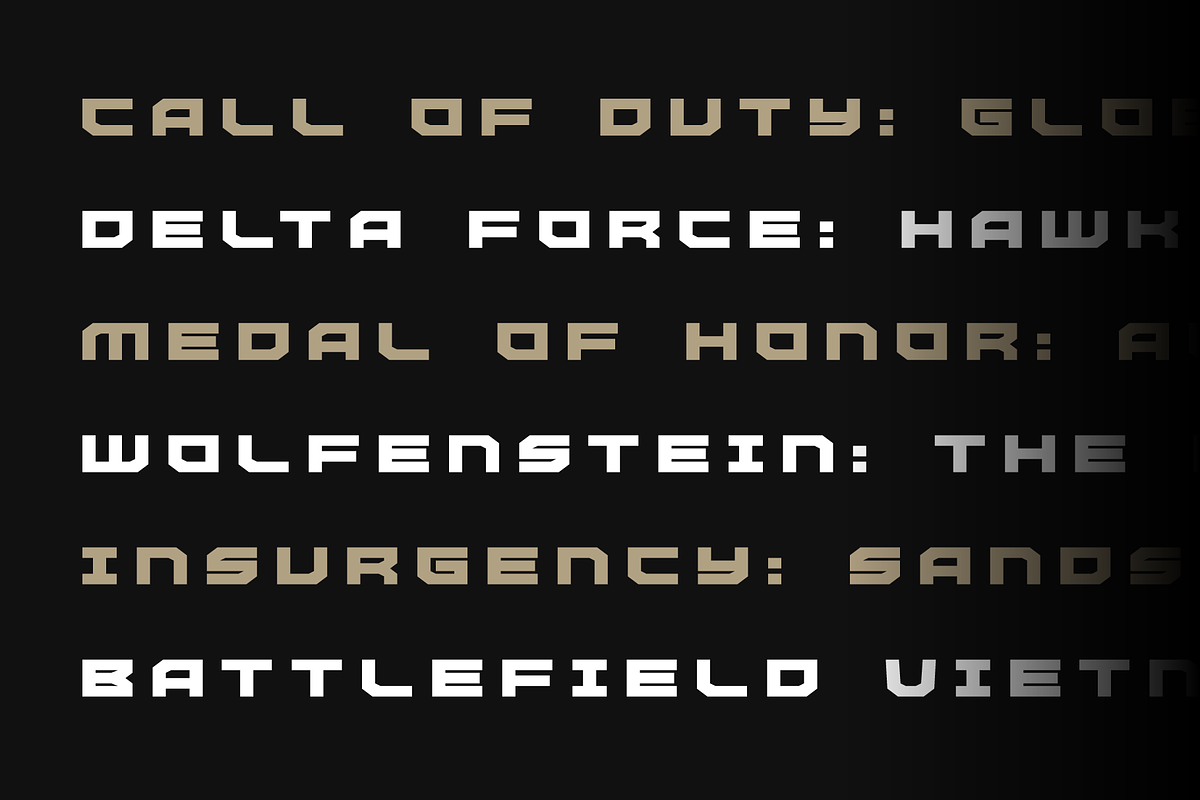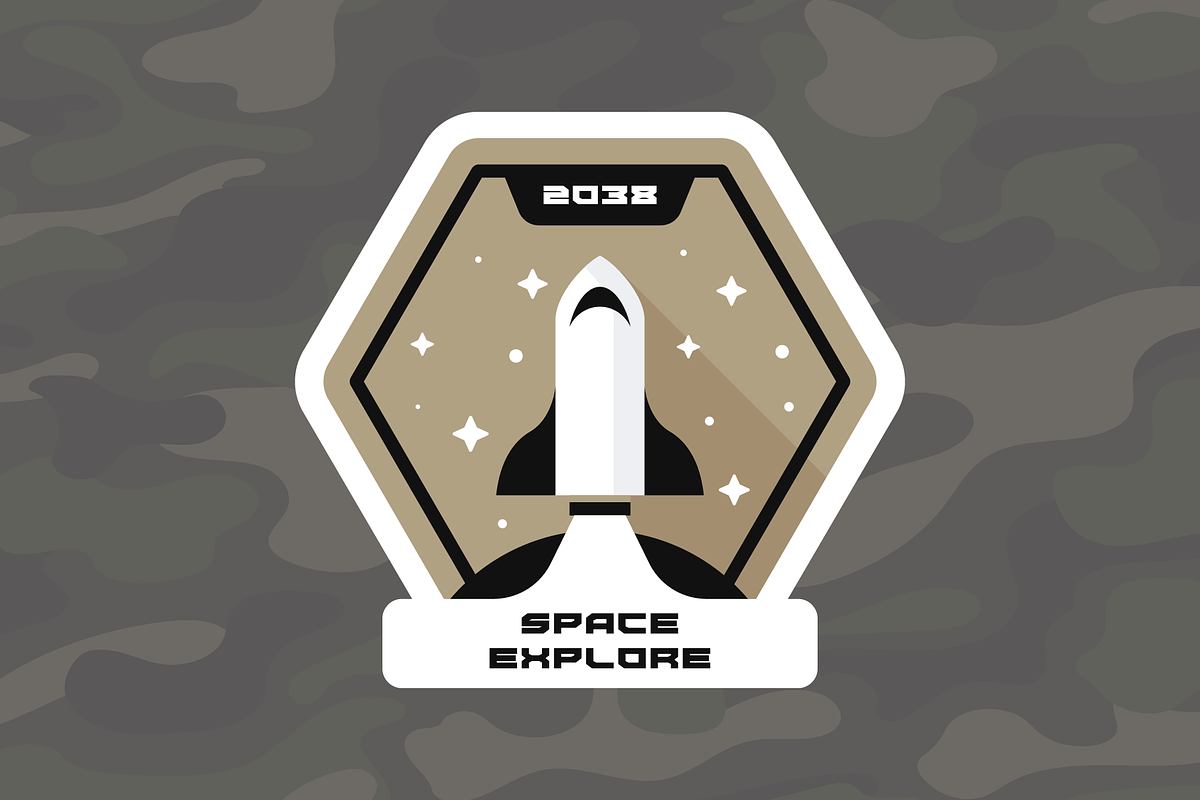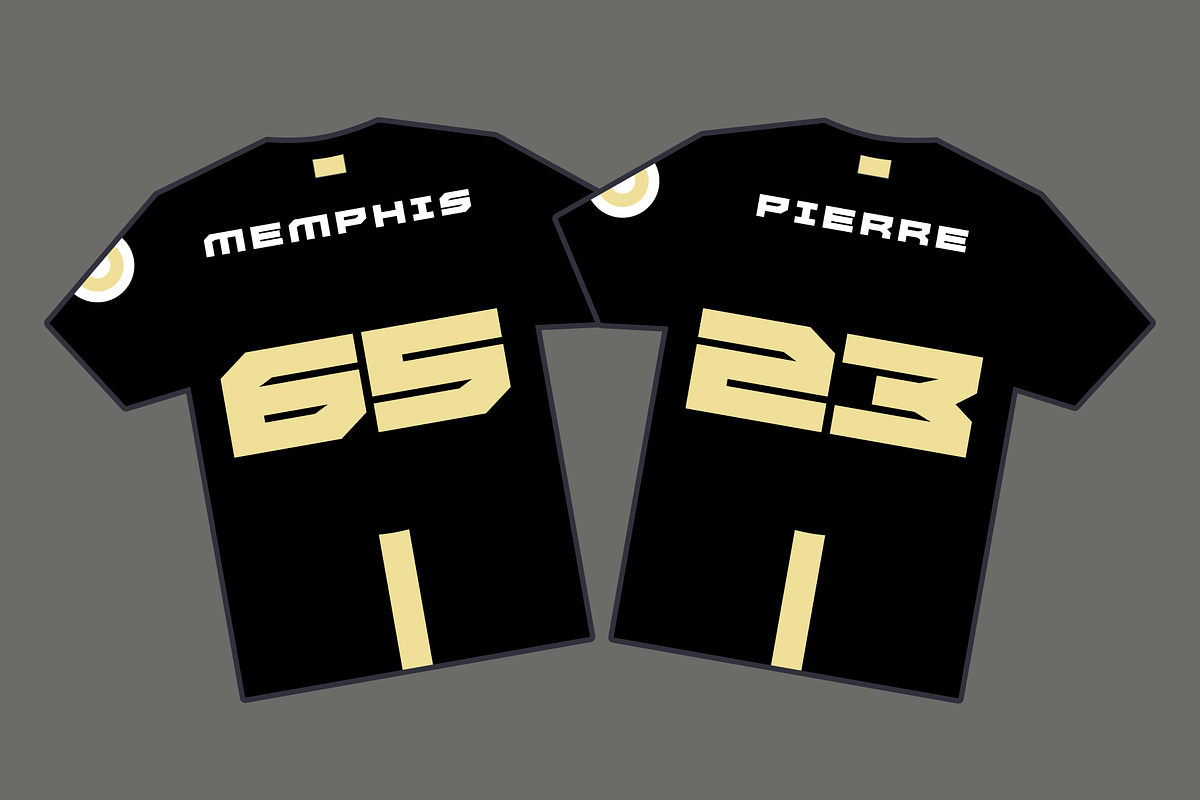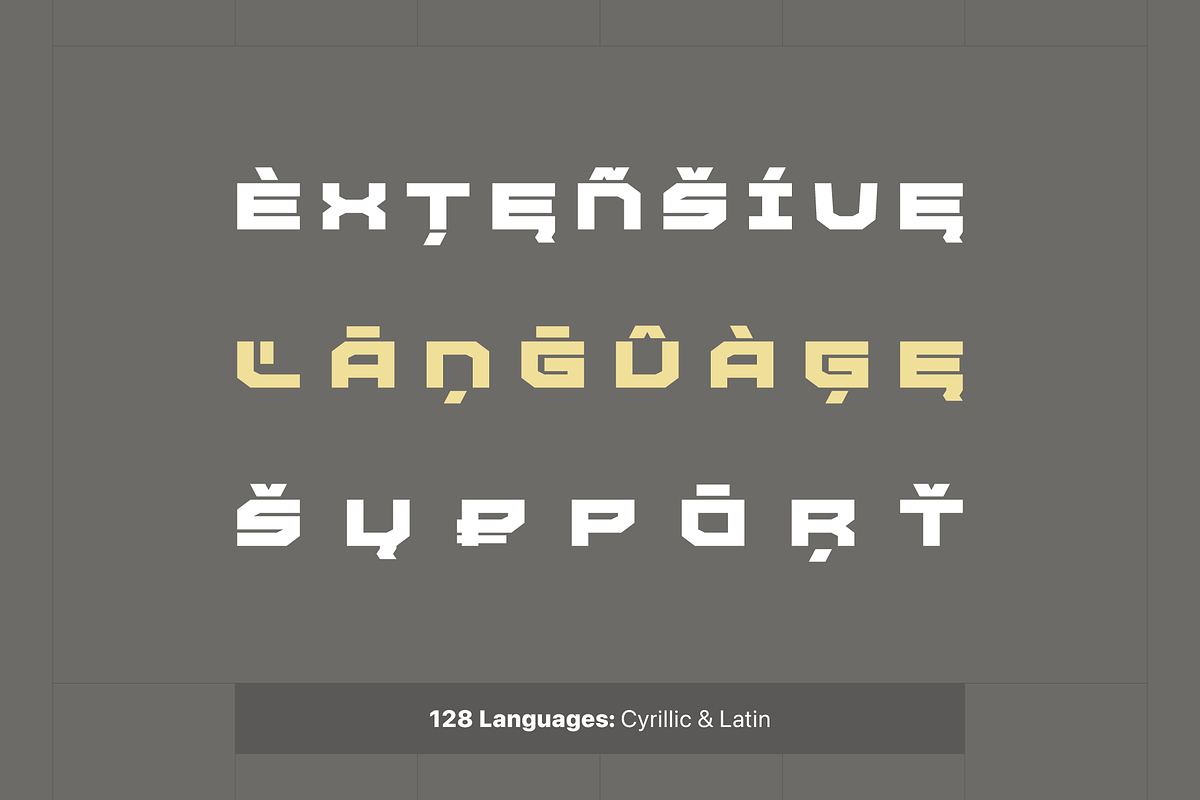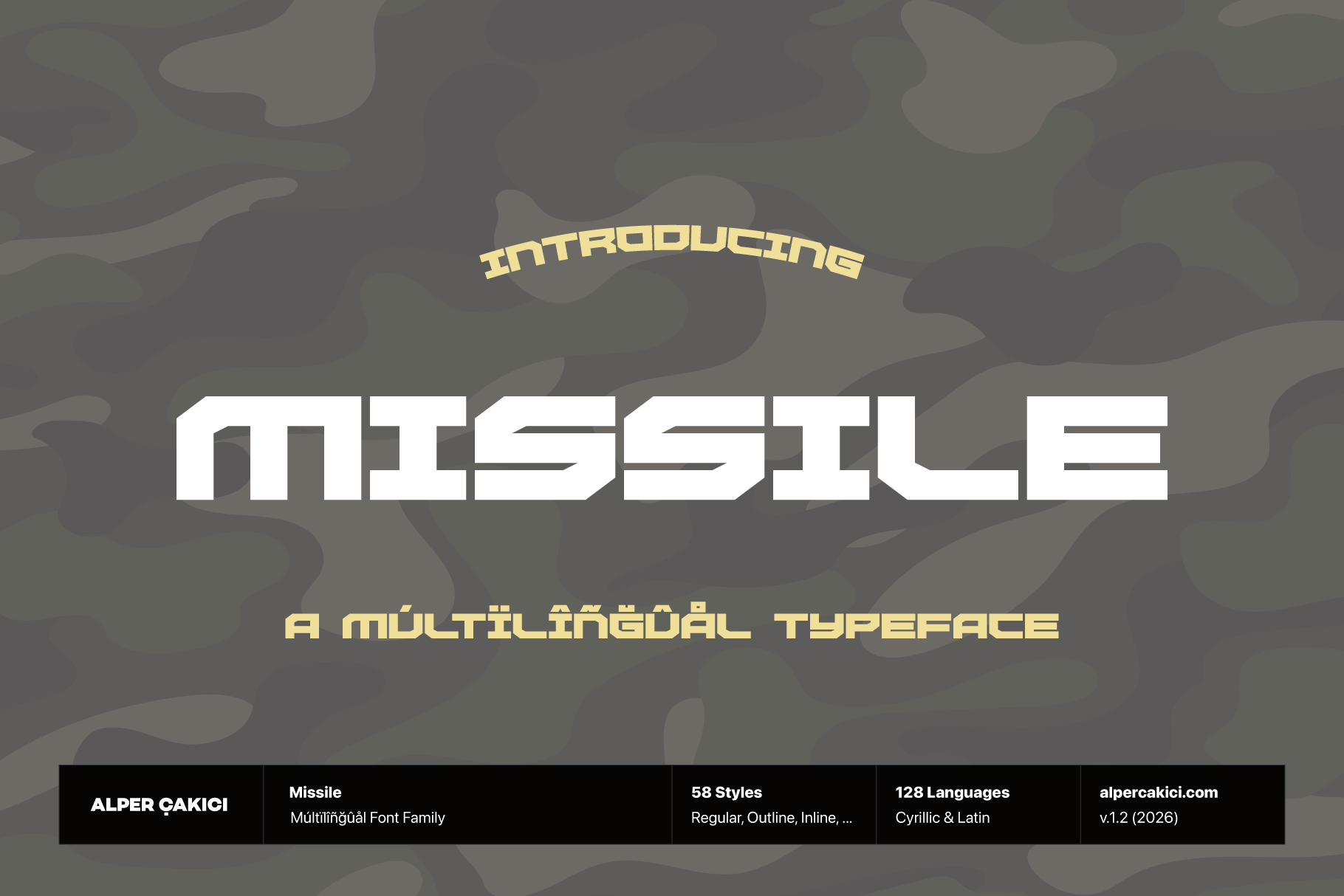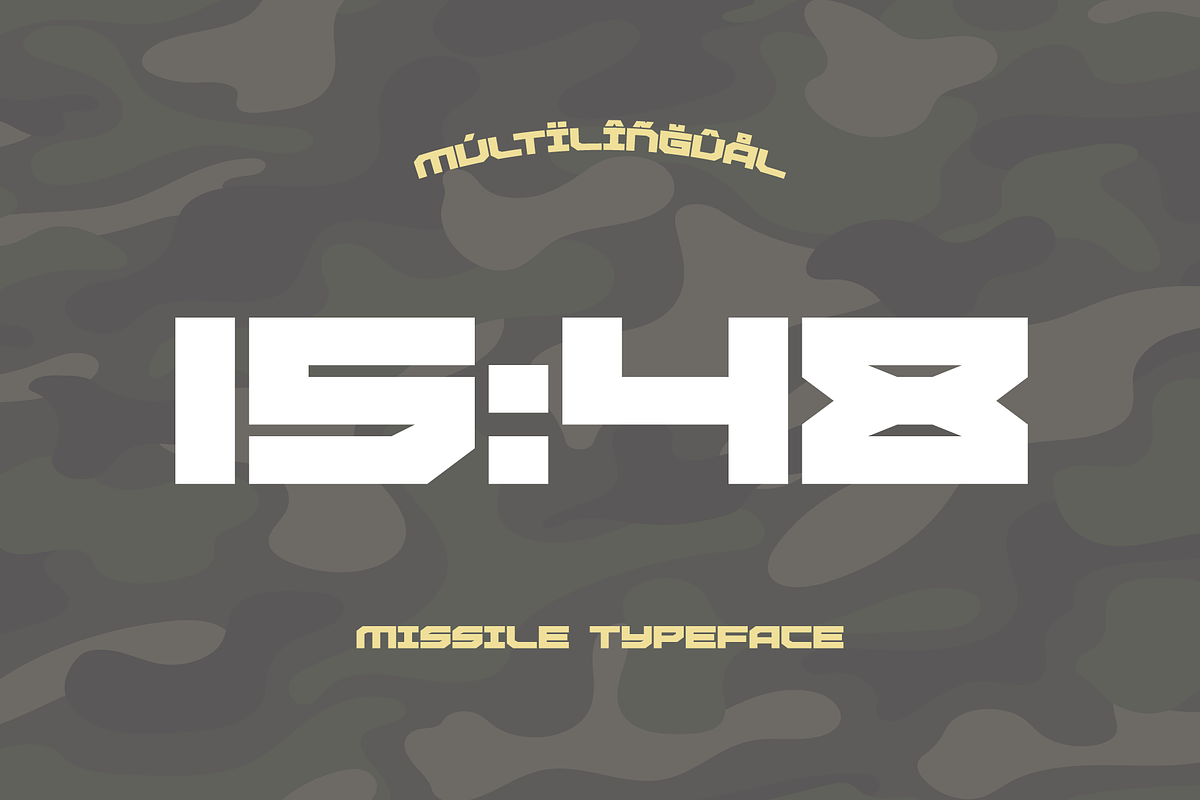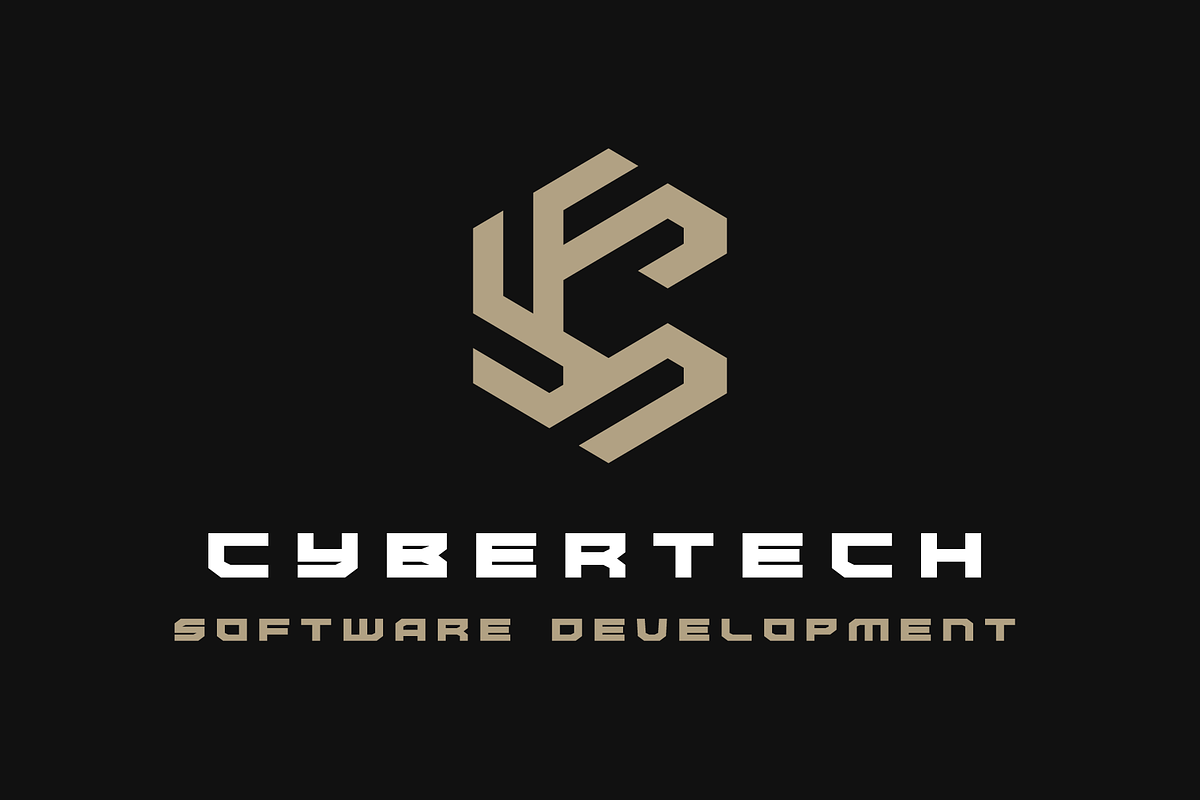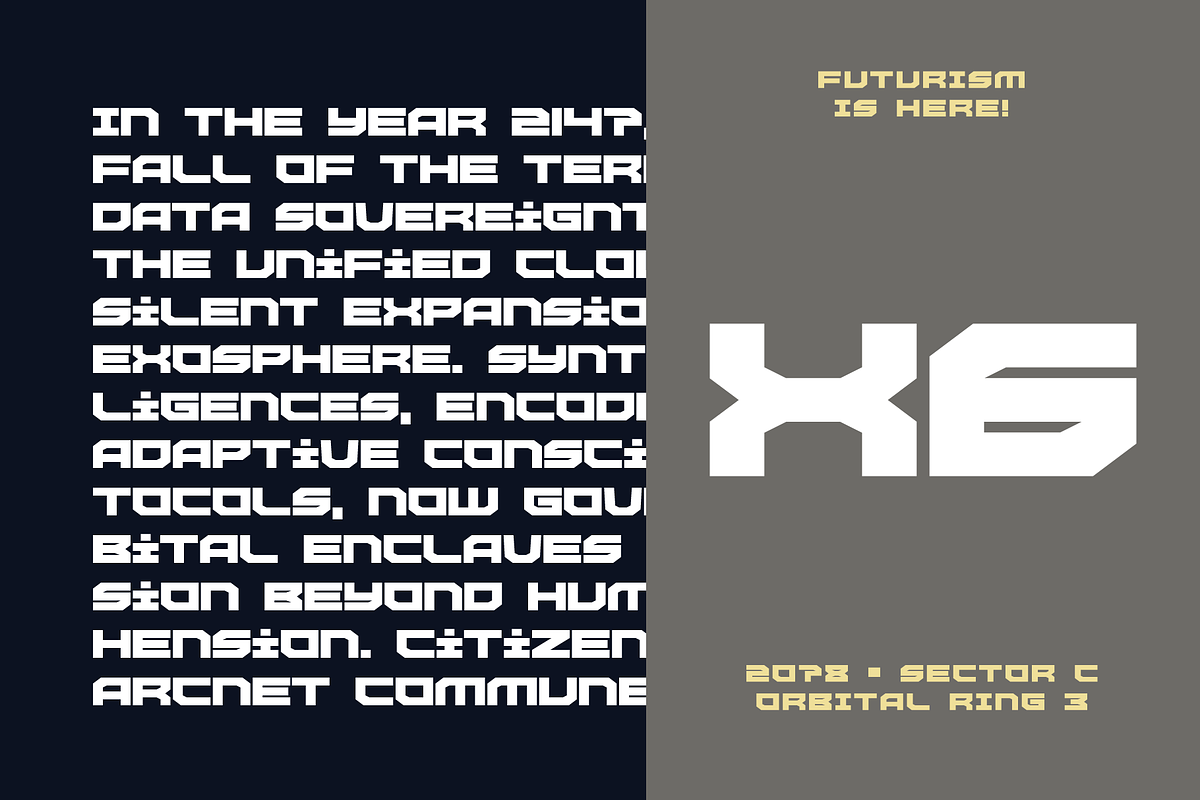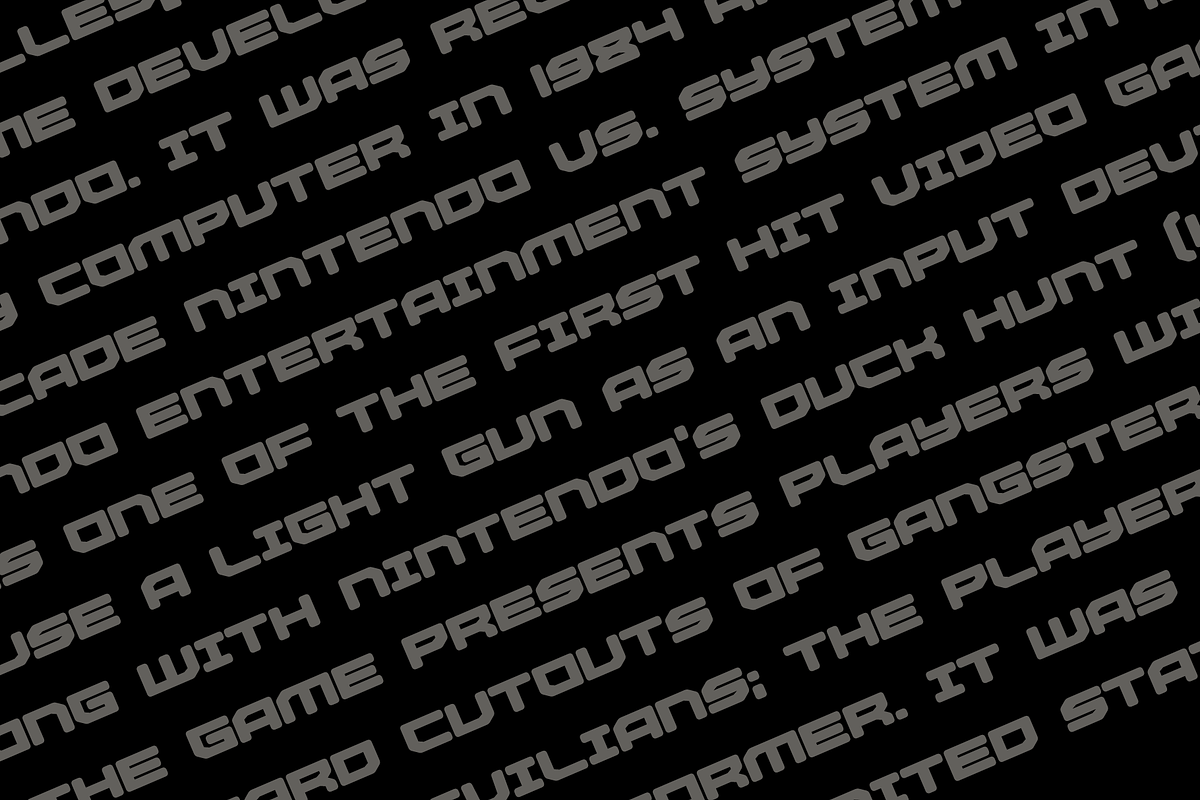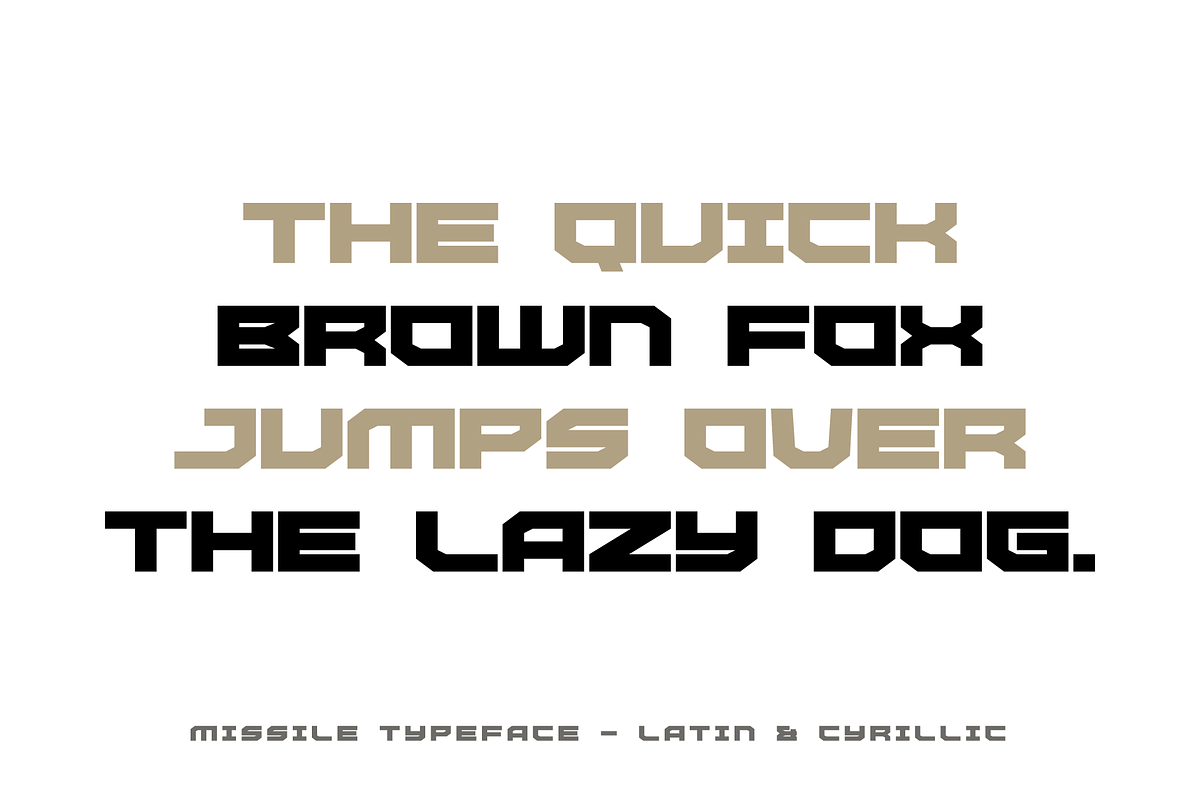
Missile An Army Inspired Typeface
Meet Missile, a bold and commanding typeface family built for designers who need strength, precision, and visual authority. Inspired by military engineering, geometric construction, and typography, Missile delivers a versatile system of 58 meticulously crafted styles, ranging from clean technical cuts to rough, eroded, rimmed, inline, and brush-driven expressions.
Whether you’re designing army-themed games, war-inspired covers, cinematic posters, tactical branding, or high-impact print graphics, Missile gives you a complete typographic arsenal—powerful, cohesive, and unmistakably bold.
Multilingual Support – 128 Languages Includes extensive Latin and Cyrillic language support for international projects.
Missile isn’t just a font—it’s a bold, military-inspired type system built for designers who demand power, structure, and versatility in every letterform.